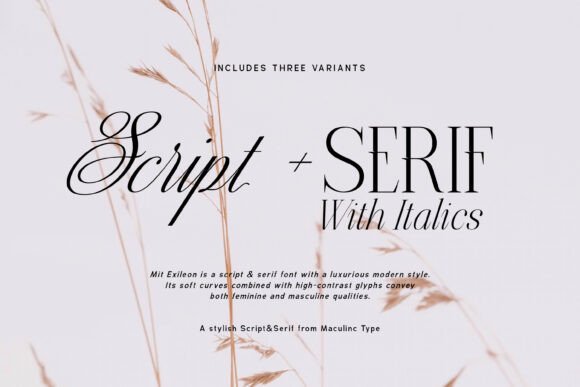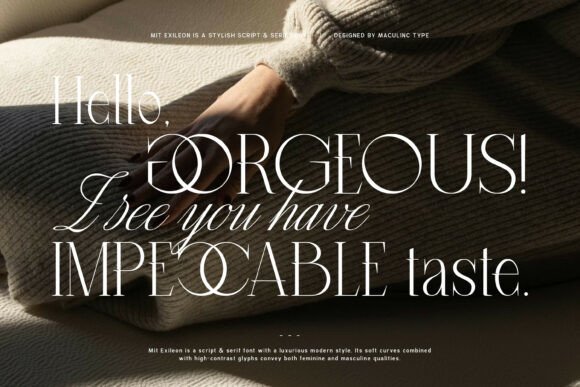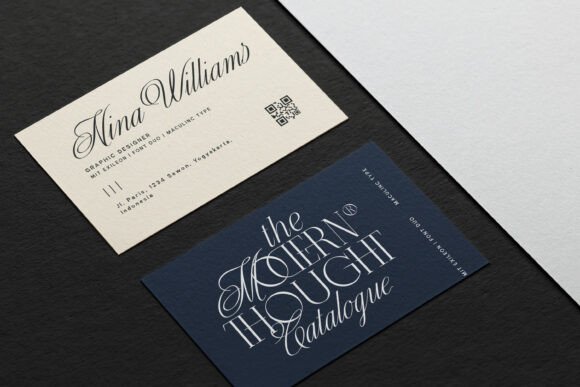
Introduction to Mit Exileon Font
Font Update: The Exileon has been renamed MIT Exileon and slightly tidied up for balance and refinement.
MIT Exileon is a Script&Serif Font with a modern style Soft curves are combined with high contrast glyphs, conveying both feminine and masculine qualities.
Key Features of Mit Exileon Font
Why Choose Mit Exileon Font?